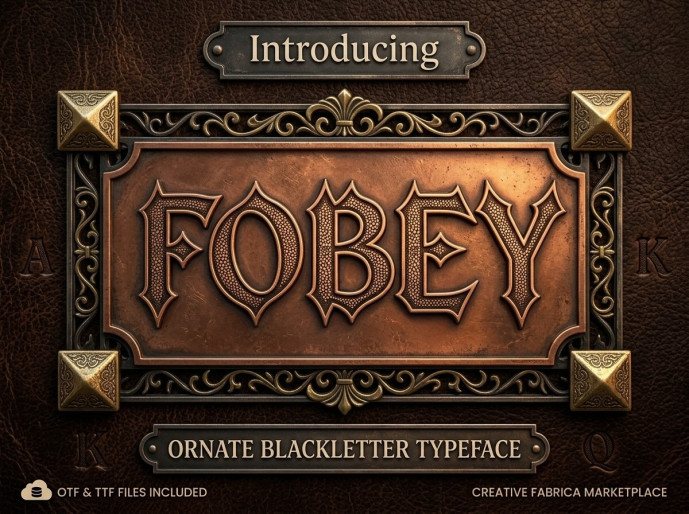
Fobia Font
Summon the dark majesty, medieval craft, and heavy gothic allure of the ancient world with Fobey, an ornate blackletter display typeface! Merging sharp, dramatic gothic spires with a beautiful stippled, dotted pattern nestled inside each glyph, this heavily textured font commands artistic respect.
Fobey is the ultimate centerpiece asset for heavy metal band logos, fantasy gaming interfaces, vintage tavern signage, tattoo studio branding, and historical book cover designs.